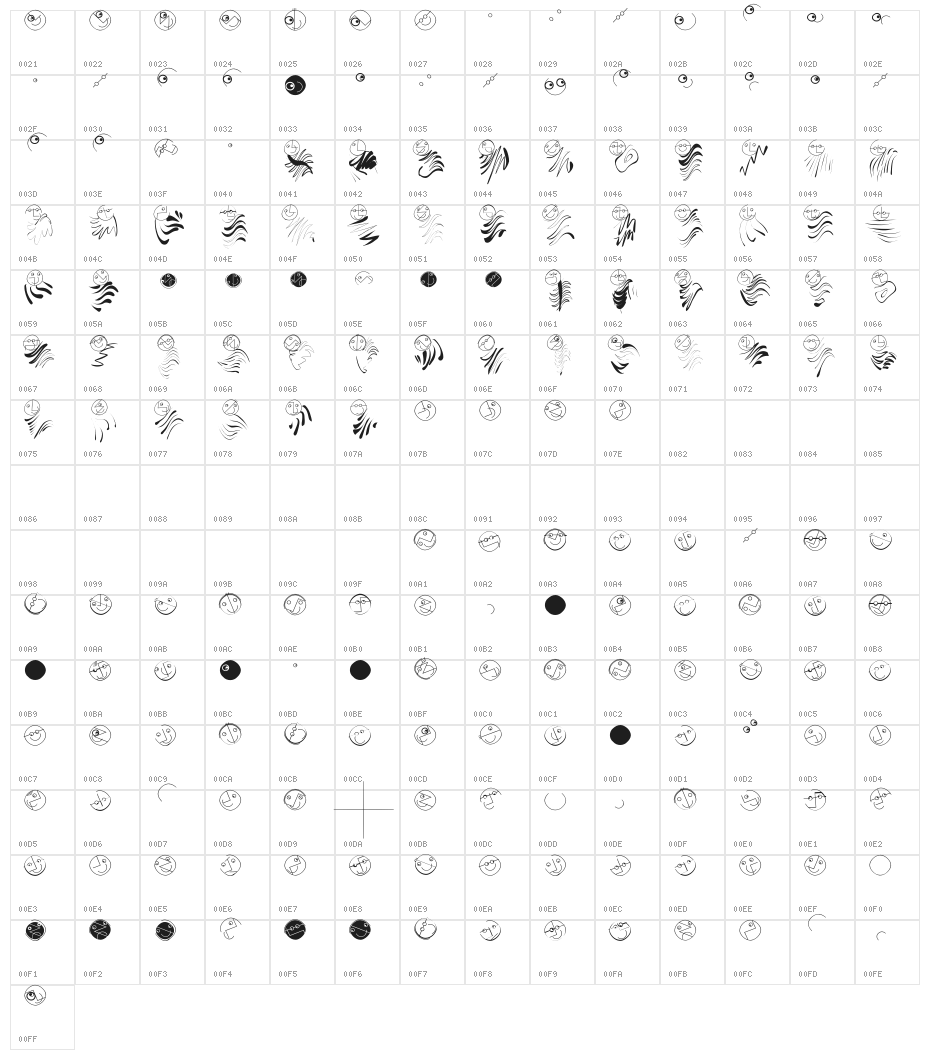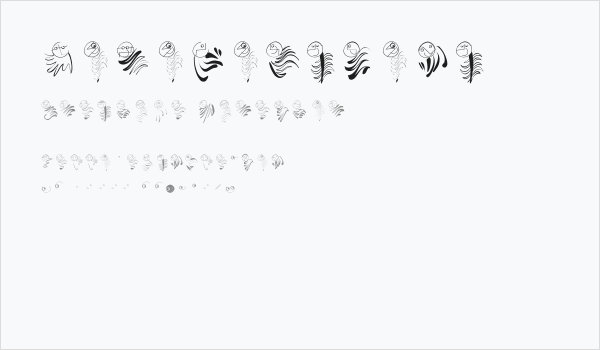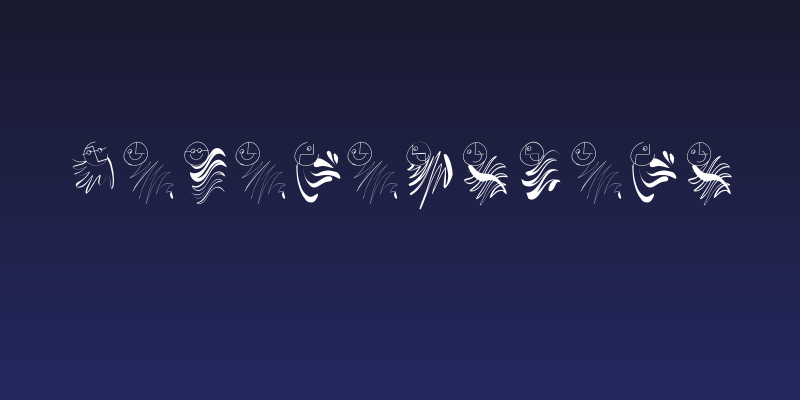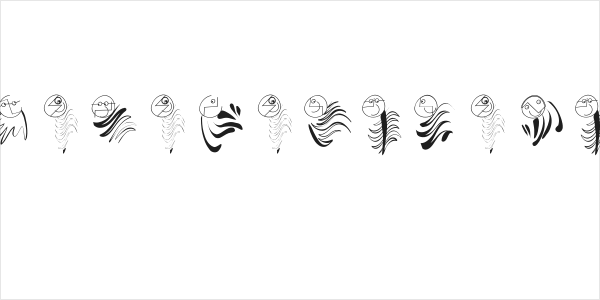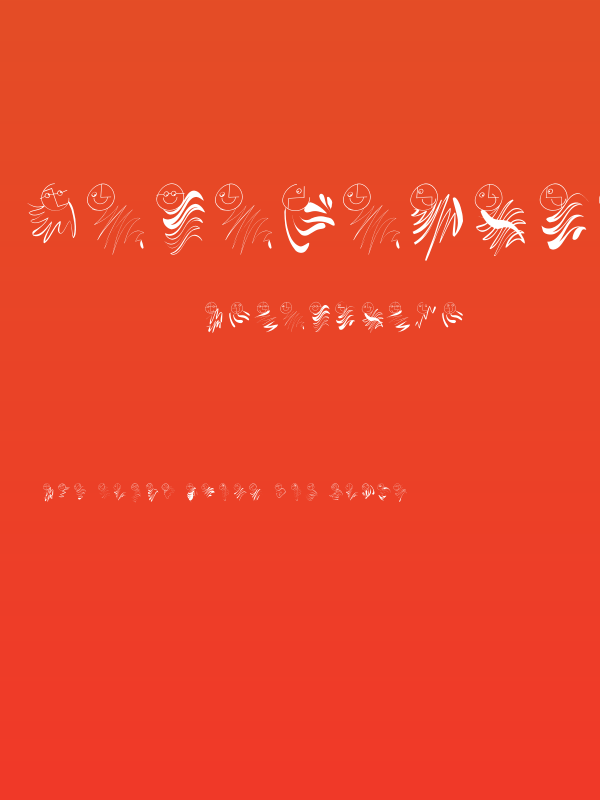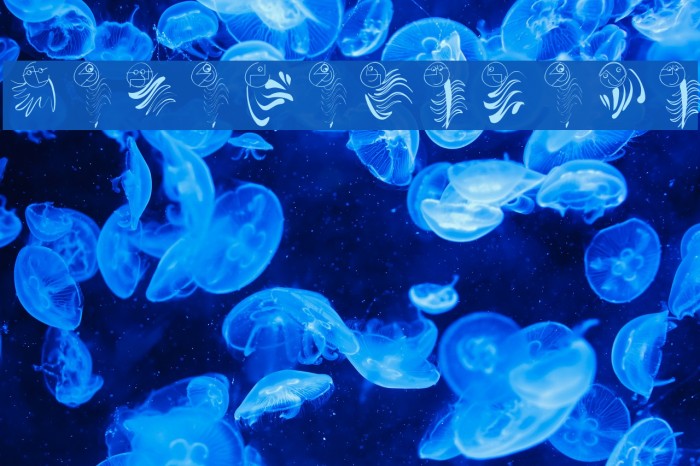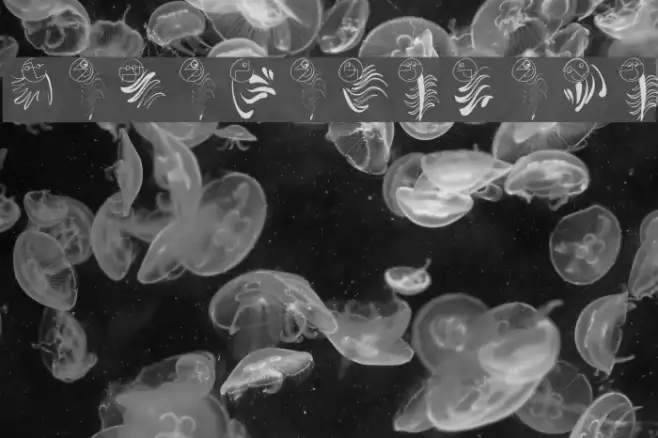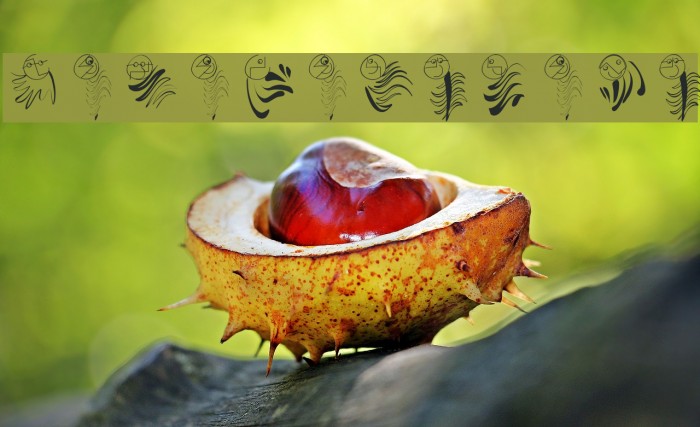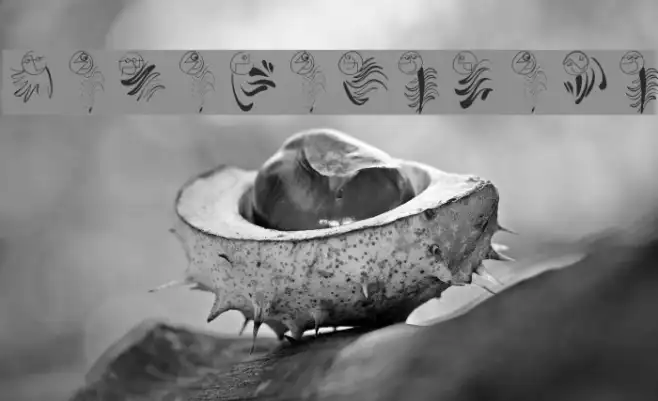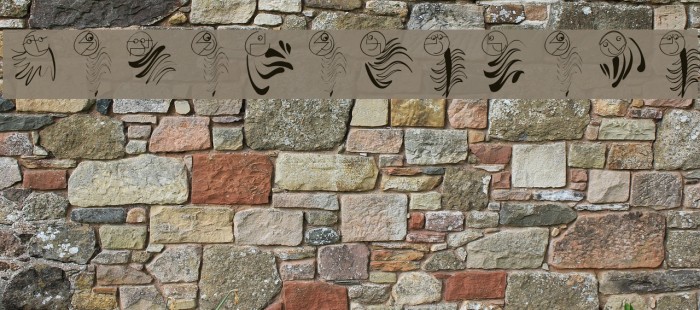
LogoModaRoma Font
LogoModaRoma Description
Highly abstract and expressive set of glyphs composed of swirling, organic lines and circular forms, evoking faces and whimsical characters rather than traditional letterforms or numerals. The style is playful and artistic, with significant variation in stroke thickness and a hand-drawn, illustrative quality.
| Overall Style | Decorative, Artistic, Whimsical |
| Use Case | Logos, Decorative elements, Illustrations |
| Proposed Projects | Artistic branding, creative logos, children's book illustrations, decorative posters, experimental design projects. |